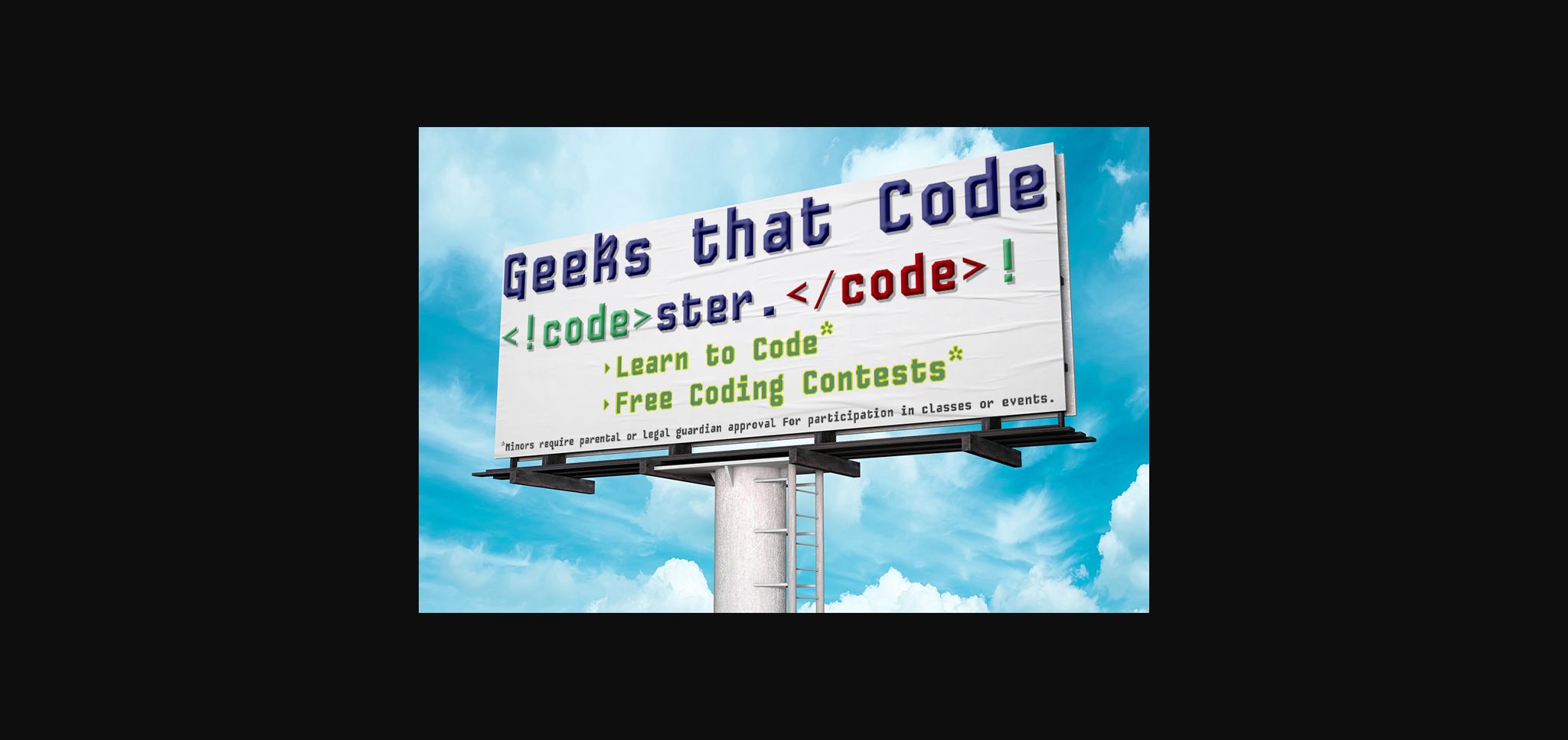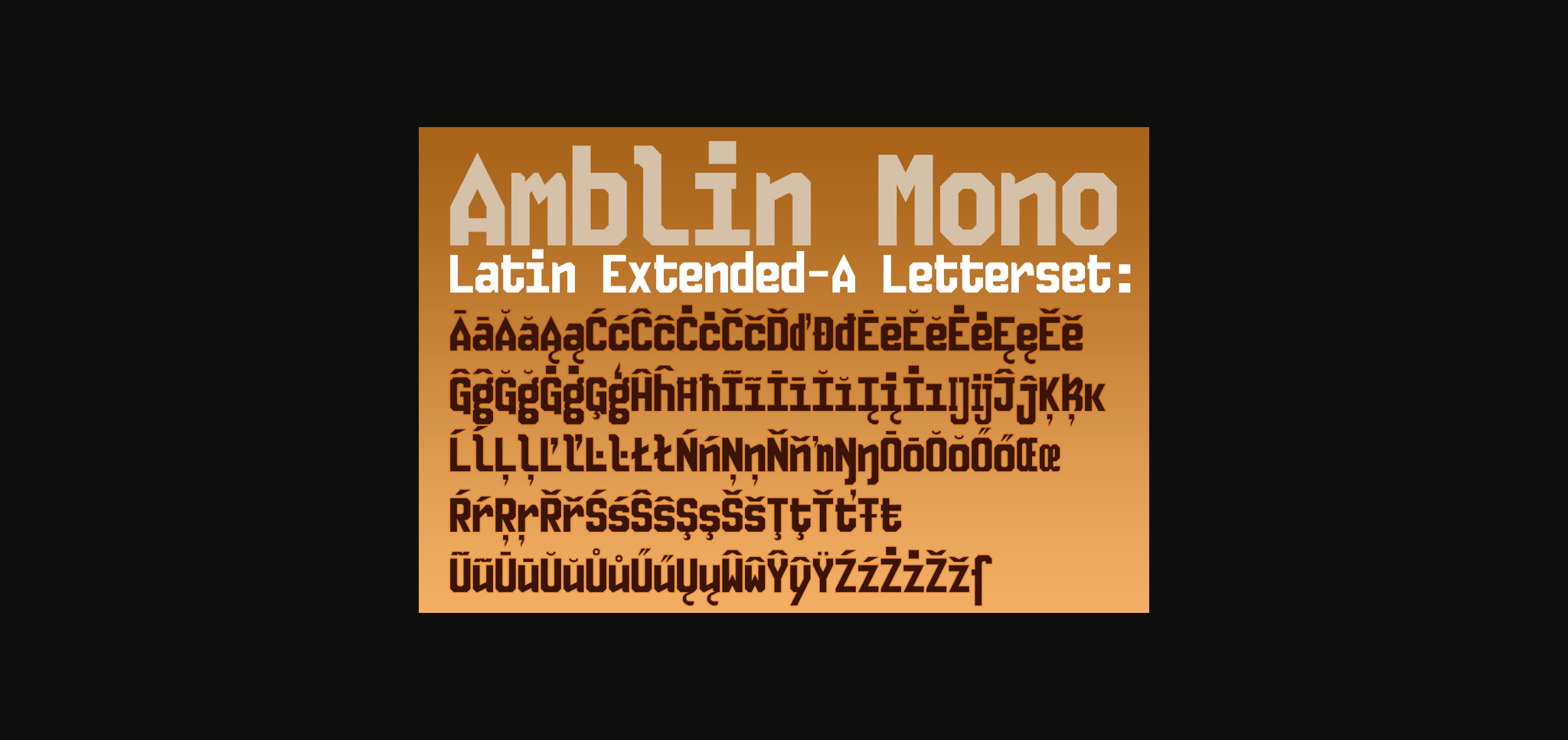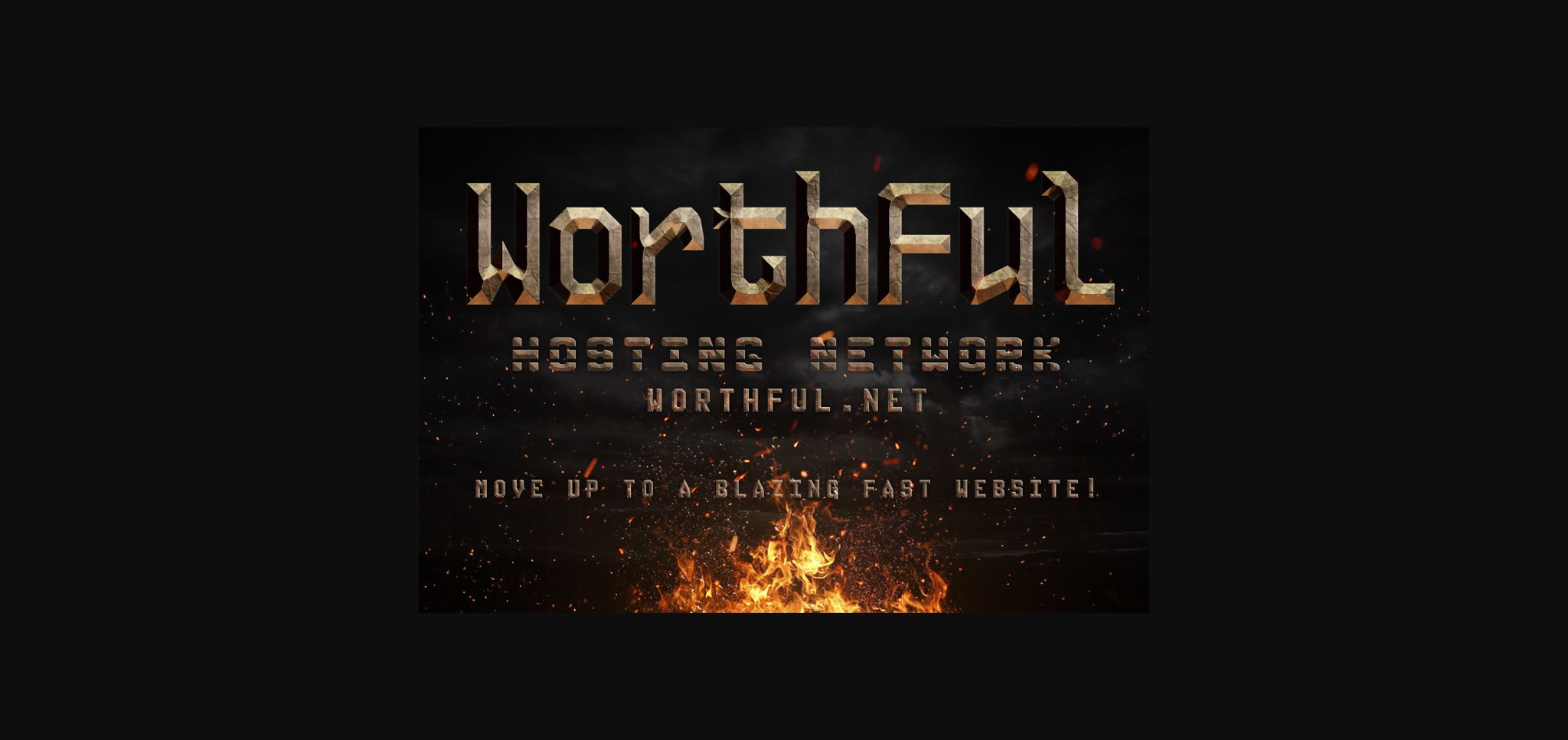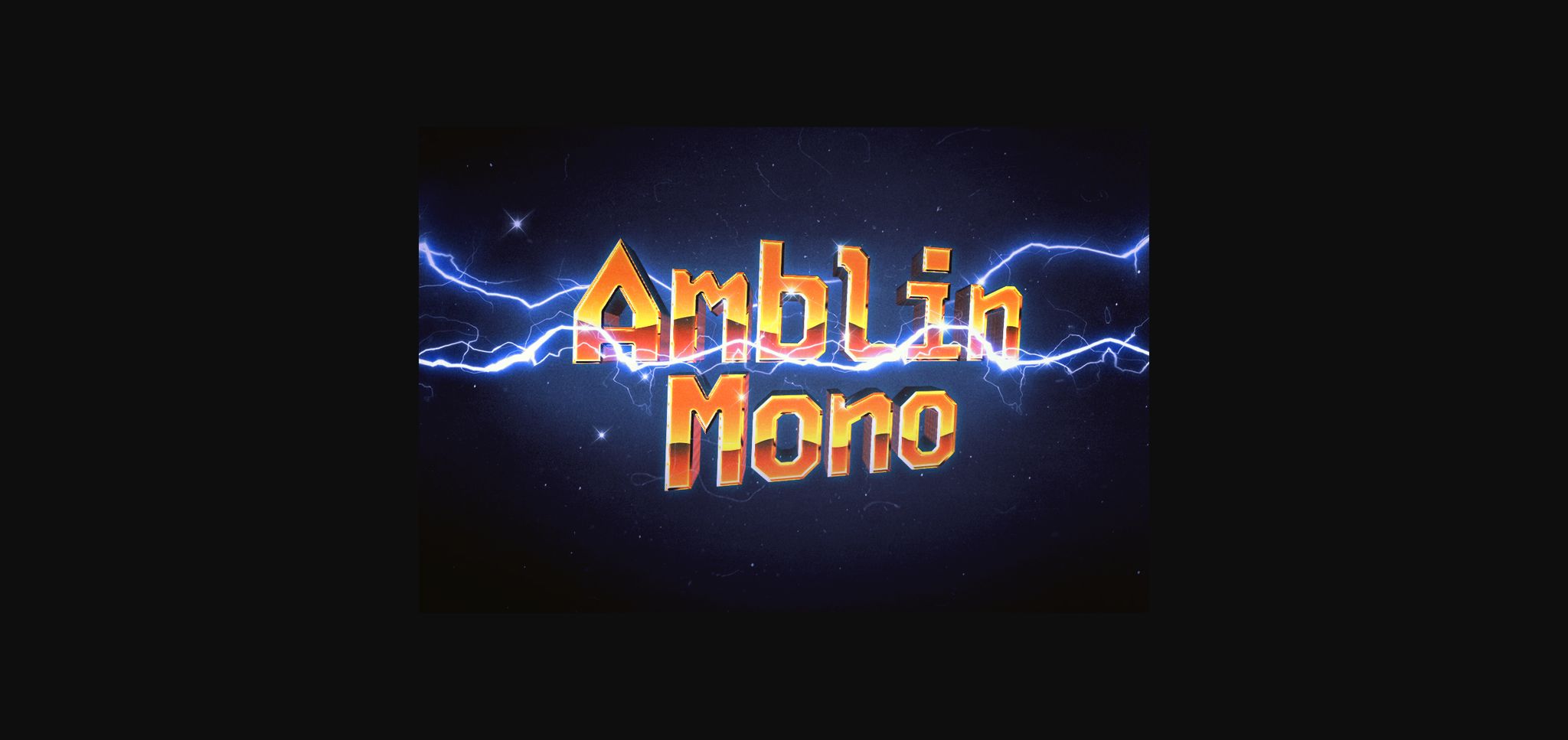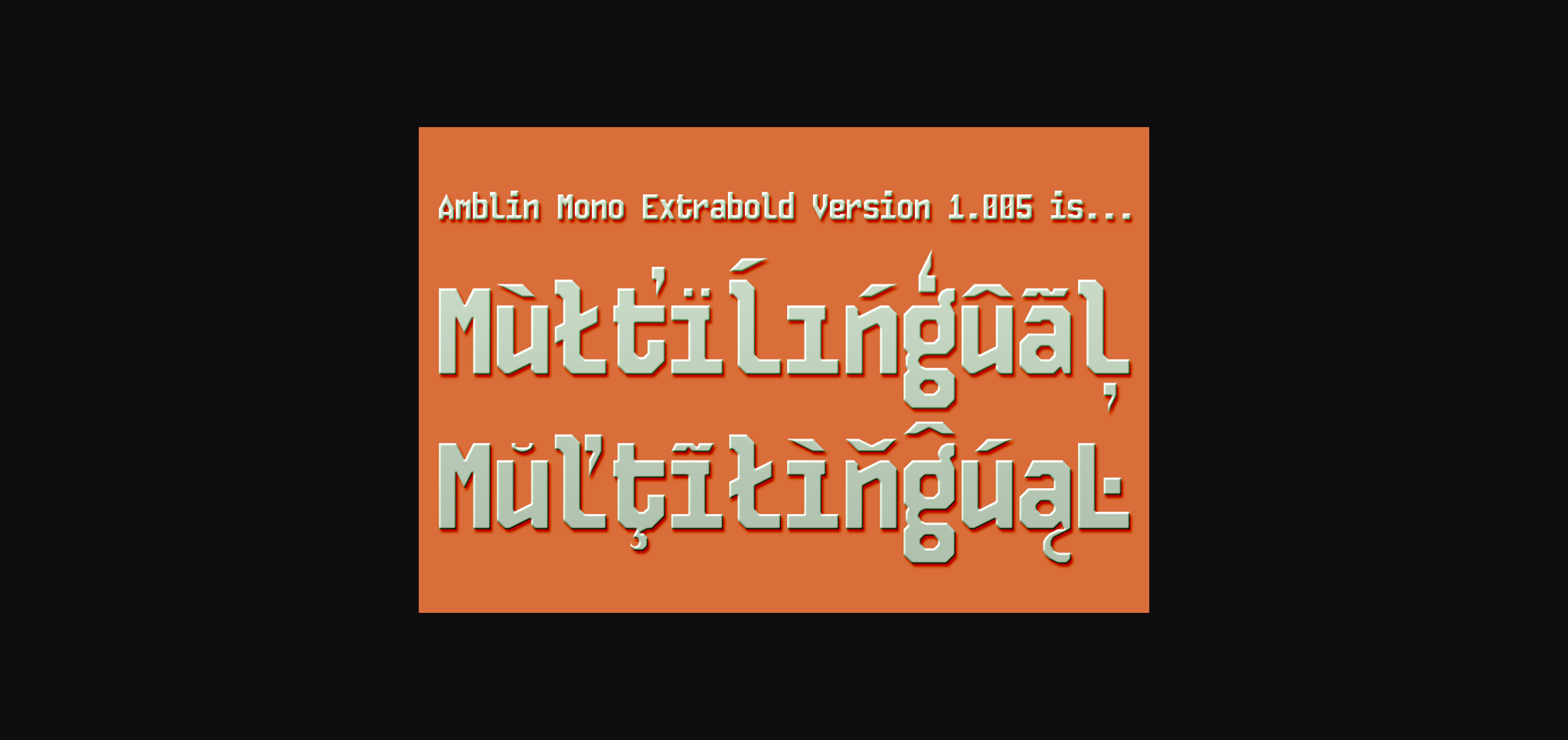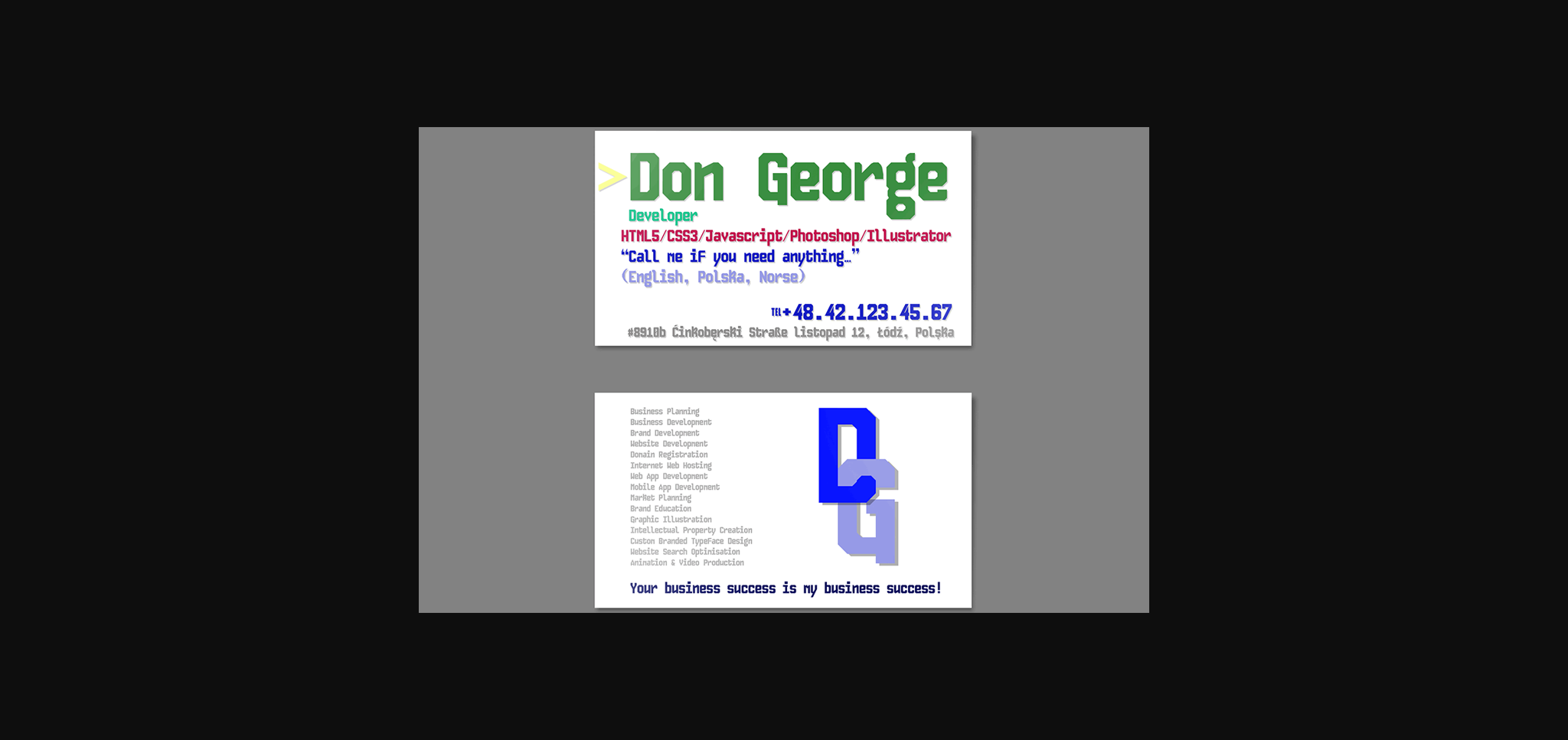
About Amblin Mono Font
Amblin Mono embodies fun, quirkiness and authenticity. This enchanting sans serif font will turn any creative idea into a true standout.